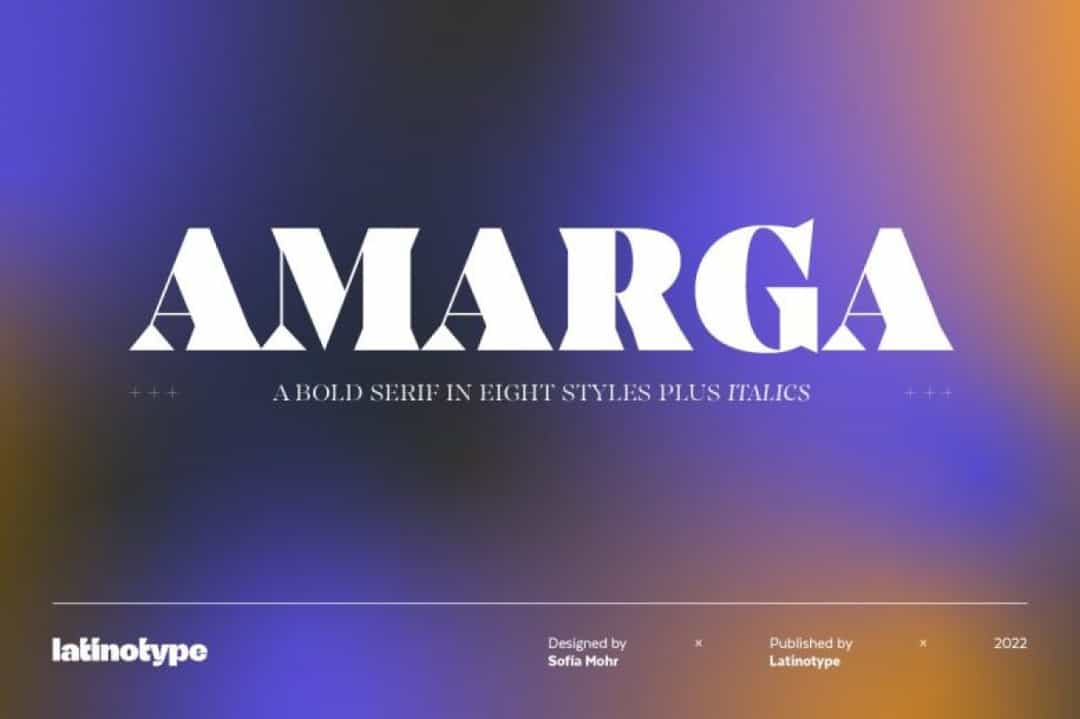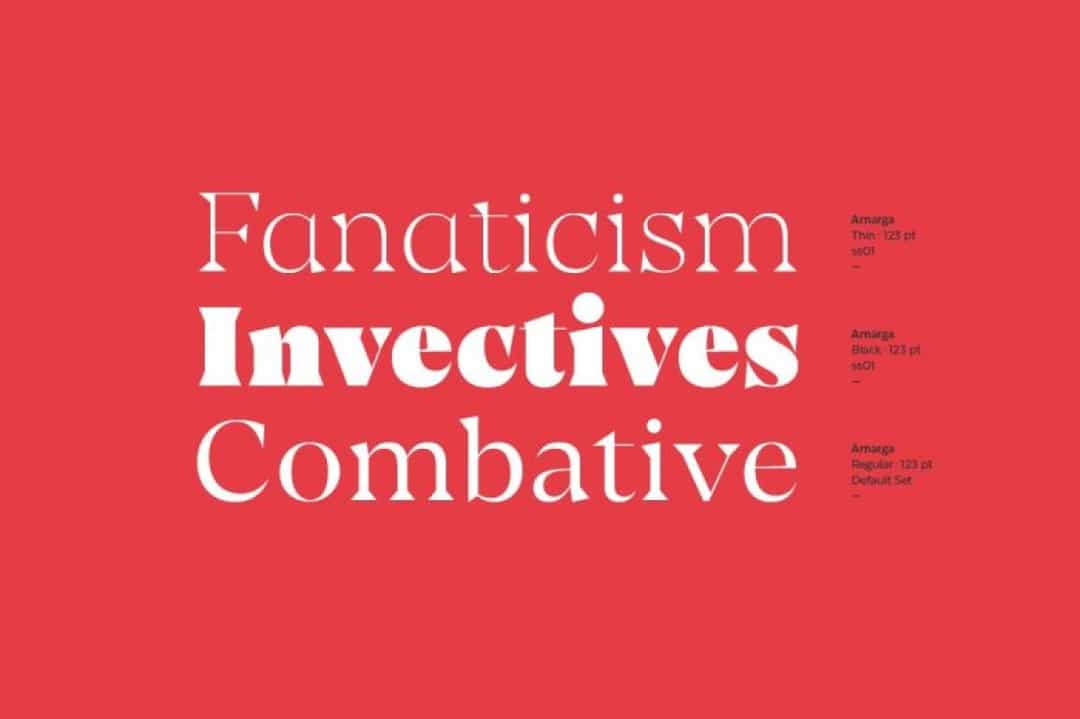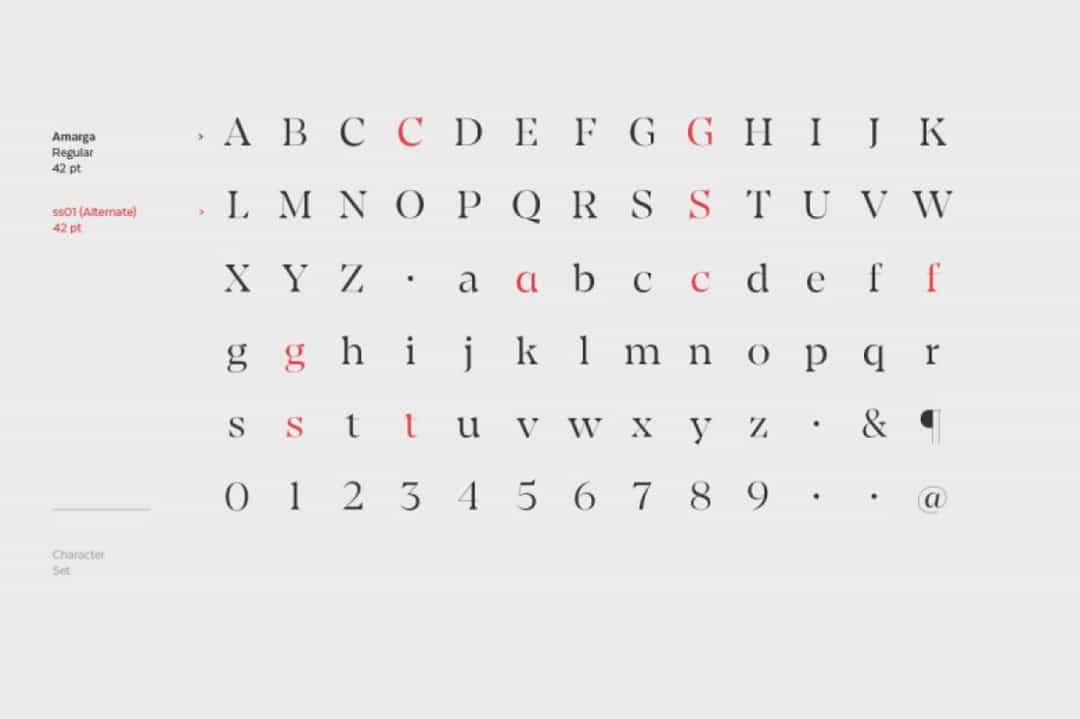
Amarga is an eye-catching serif font with high contrast and sharp terminals. Composed of nine weights ranging from dense black version to lighter one featuring italics, Amarga has 18 fonts in total for maximum visual impact in editorial design, web branding, posters or any other area of application.